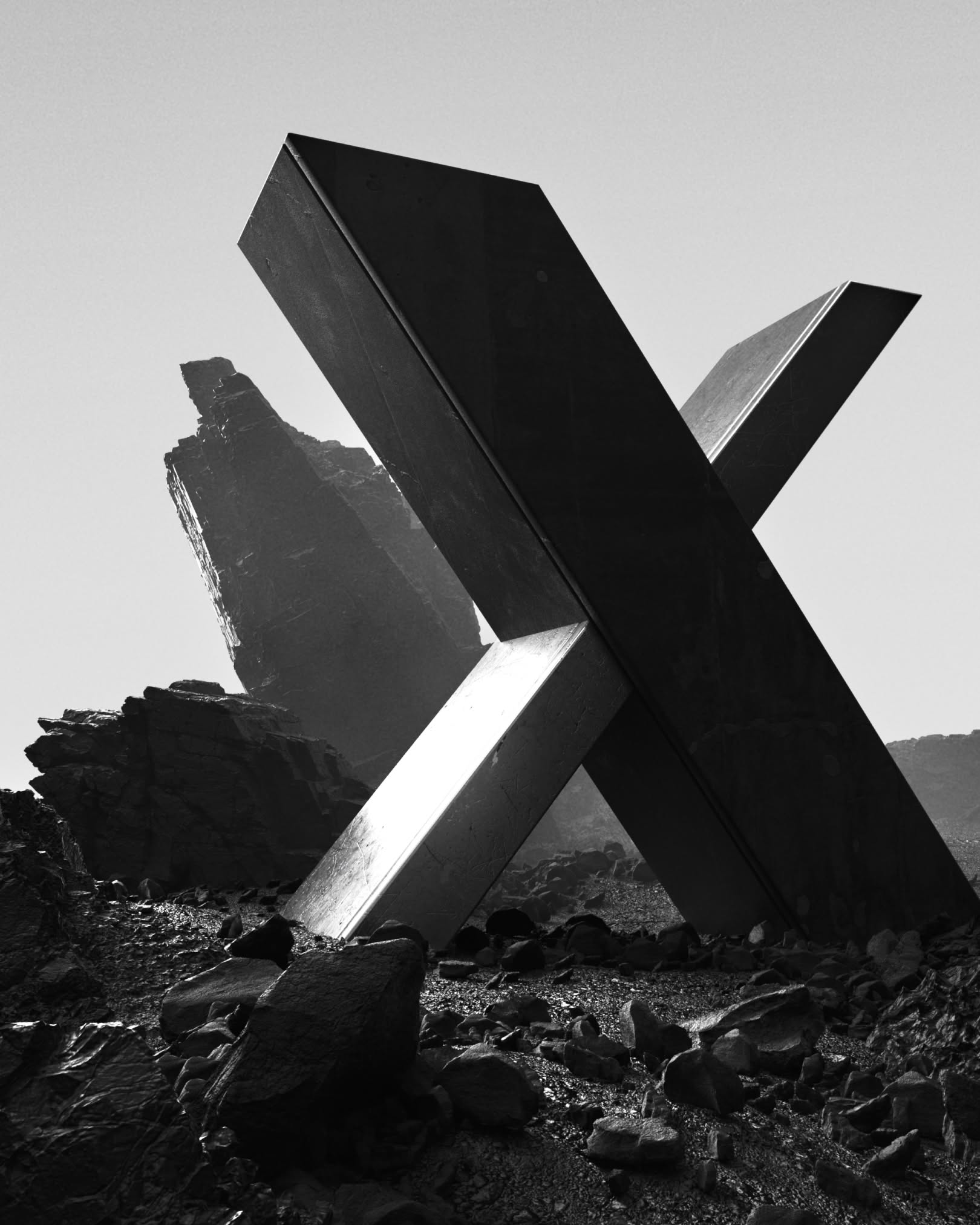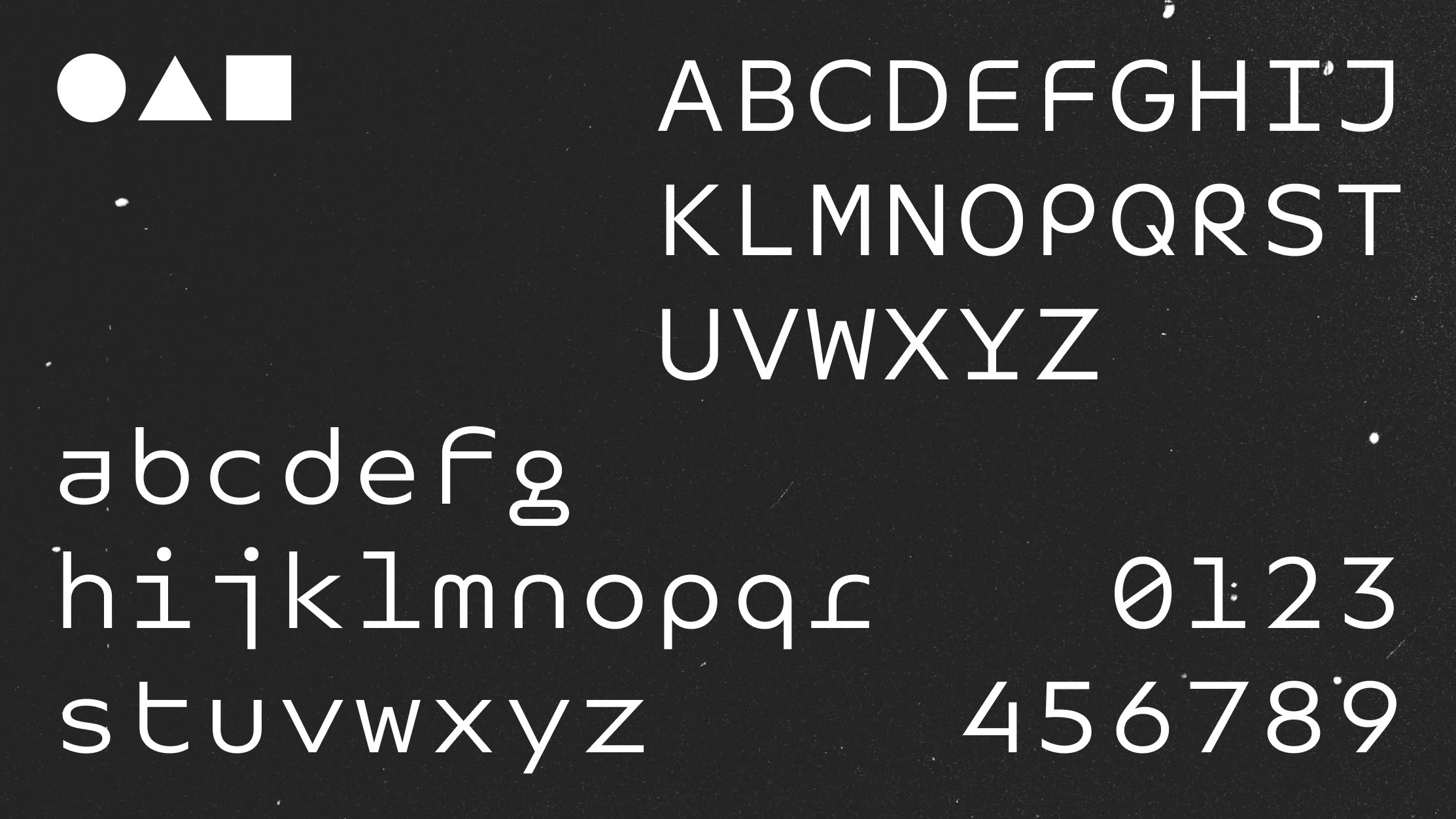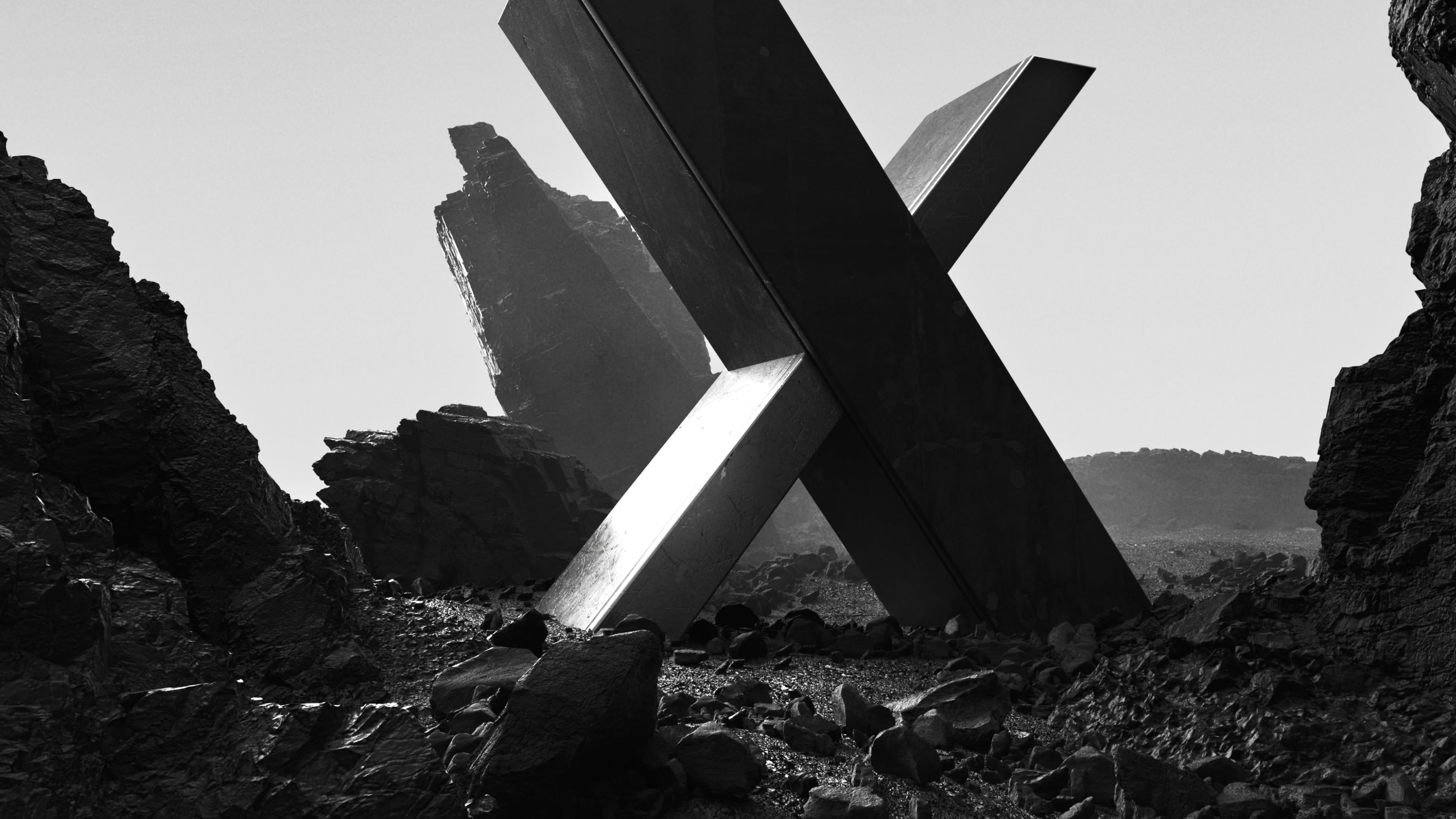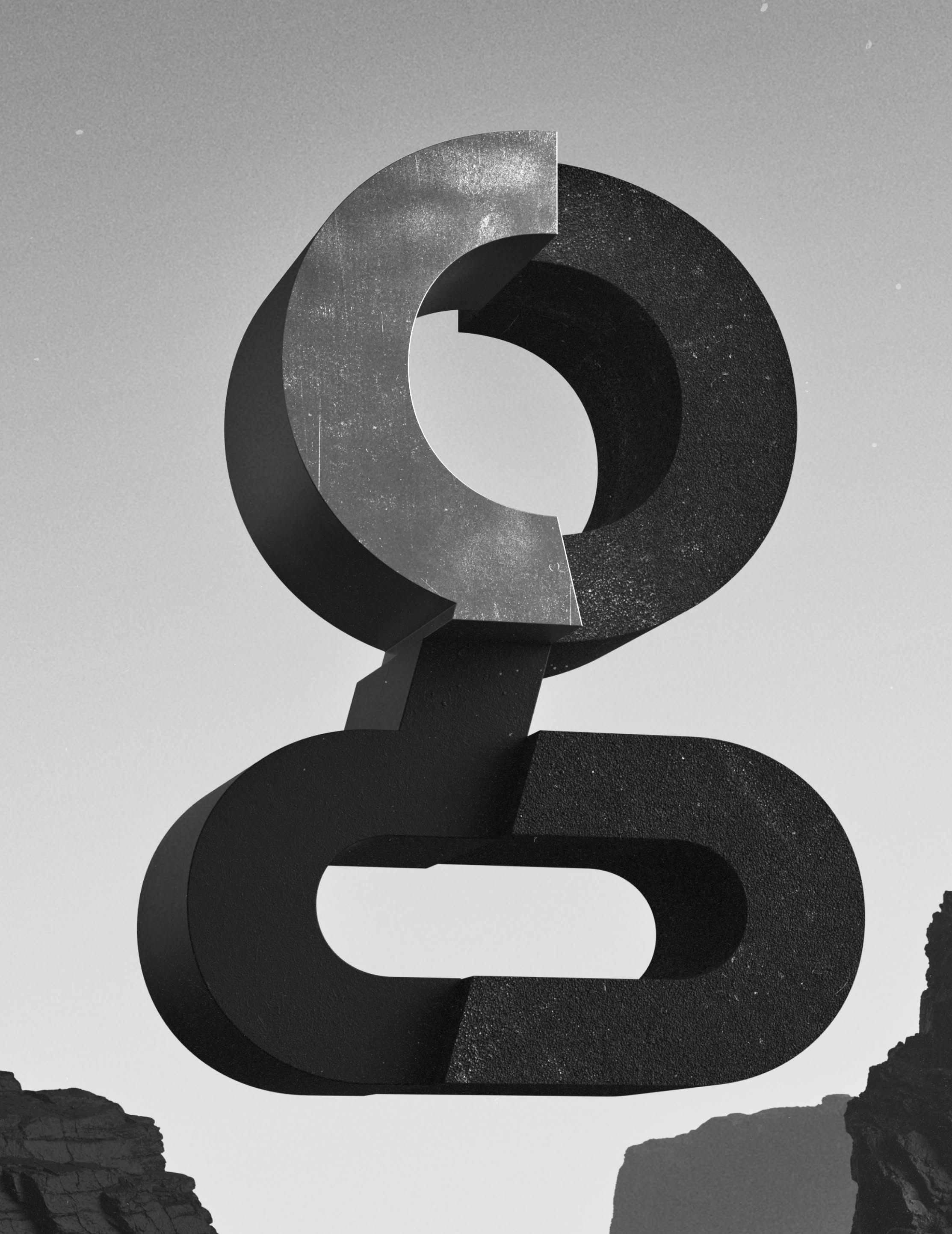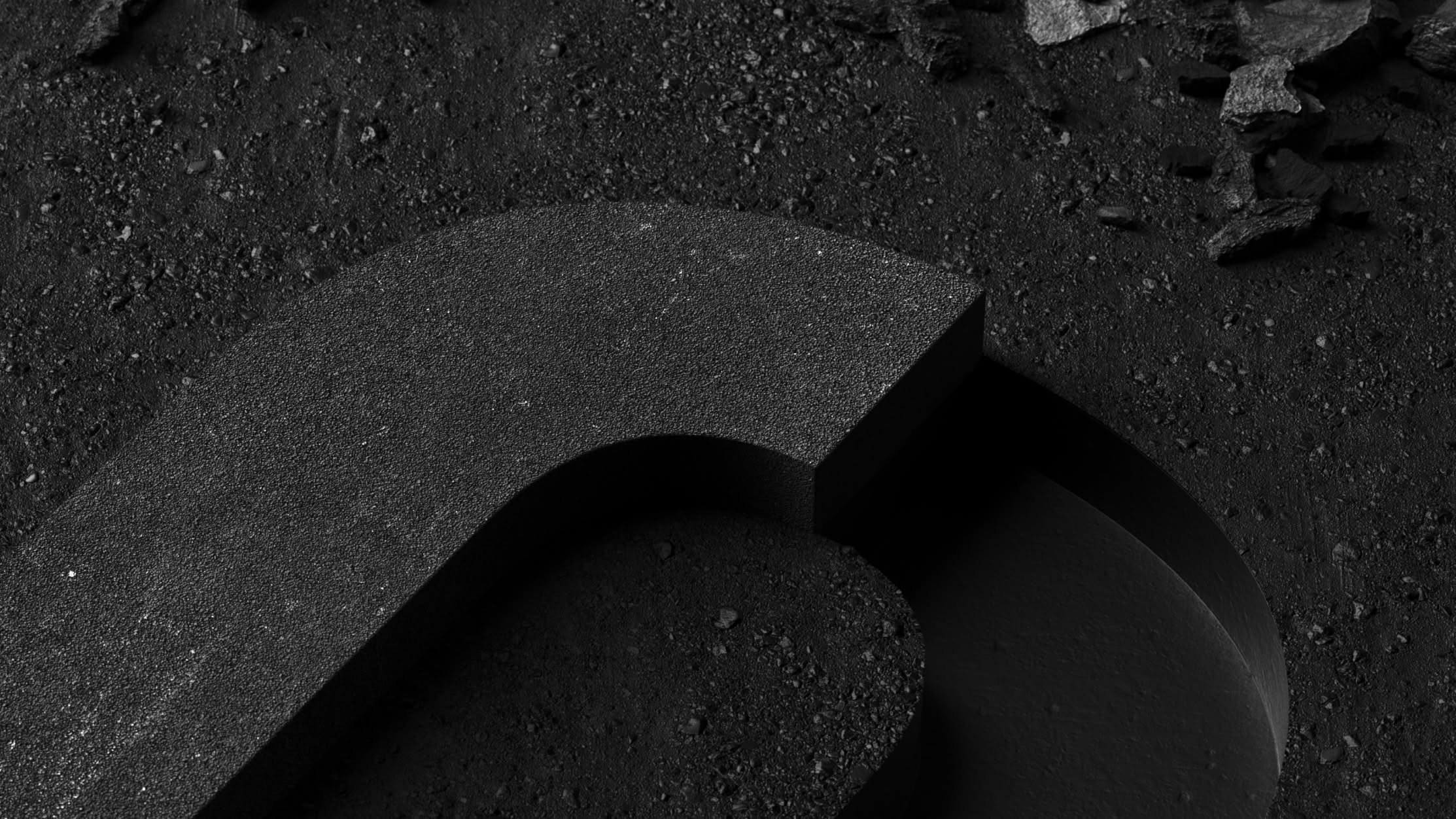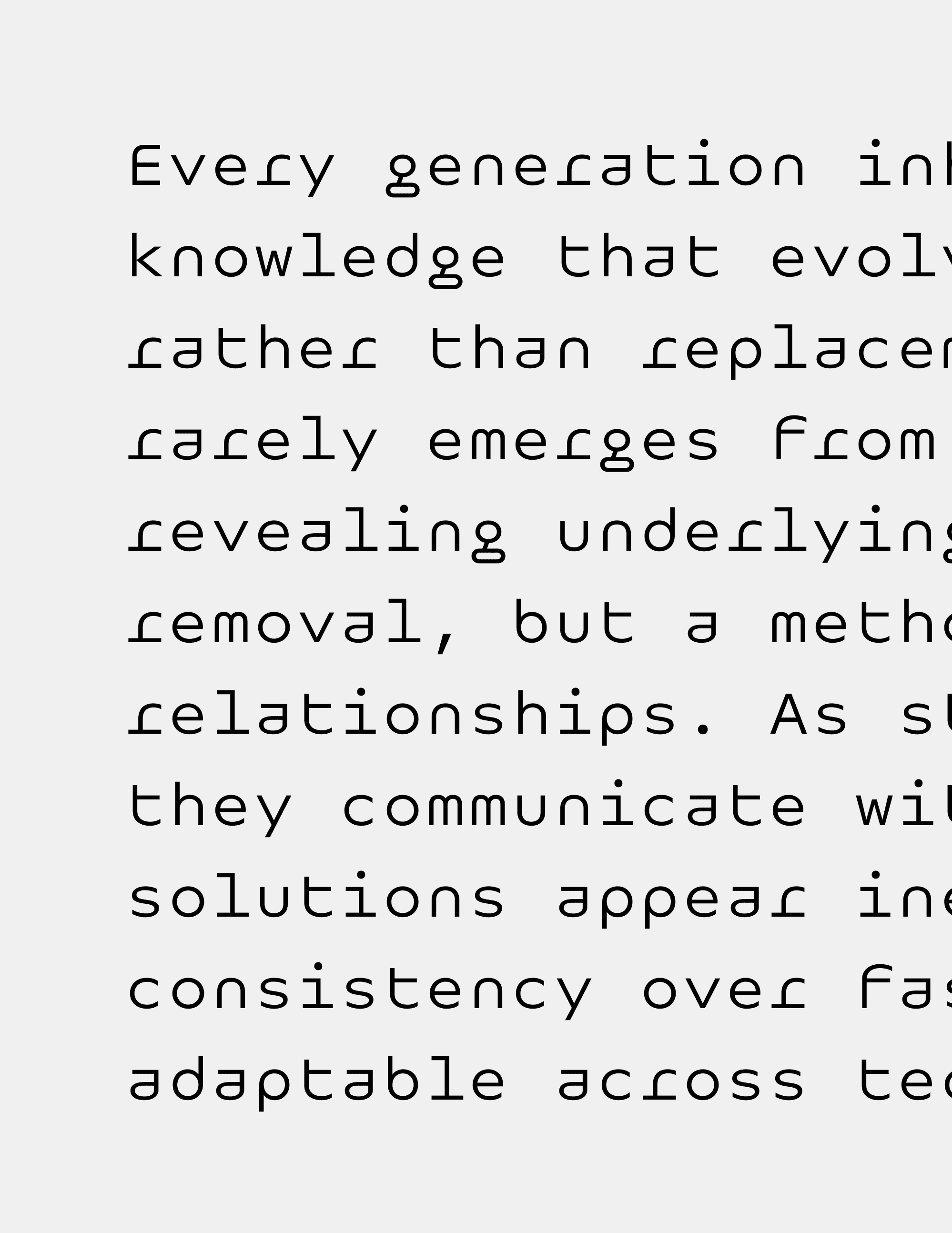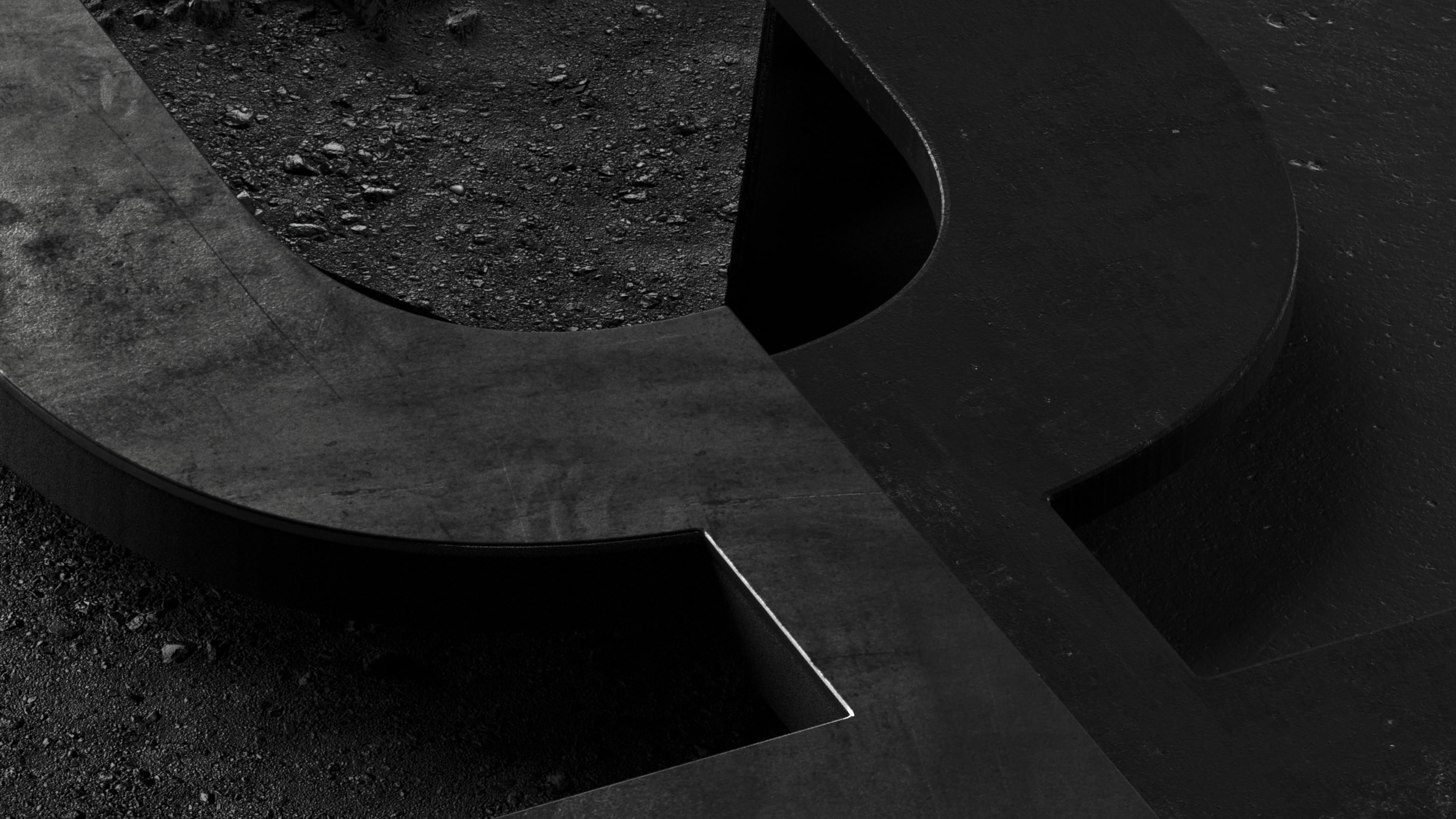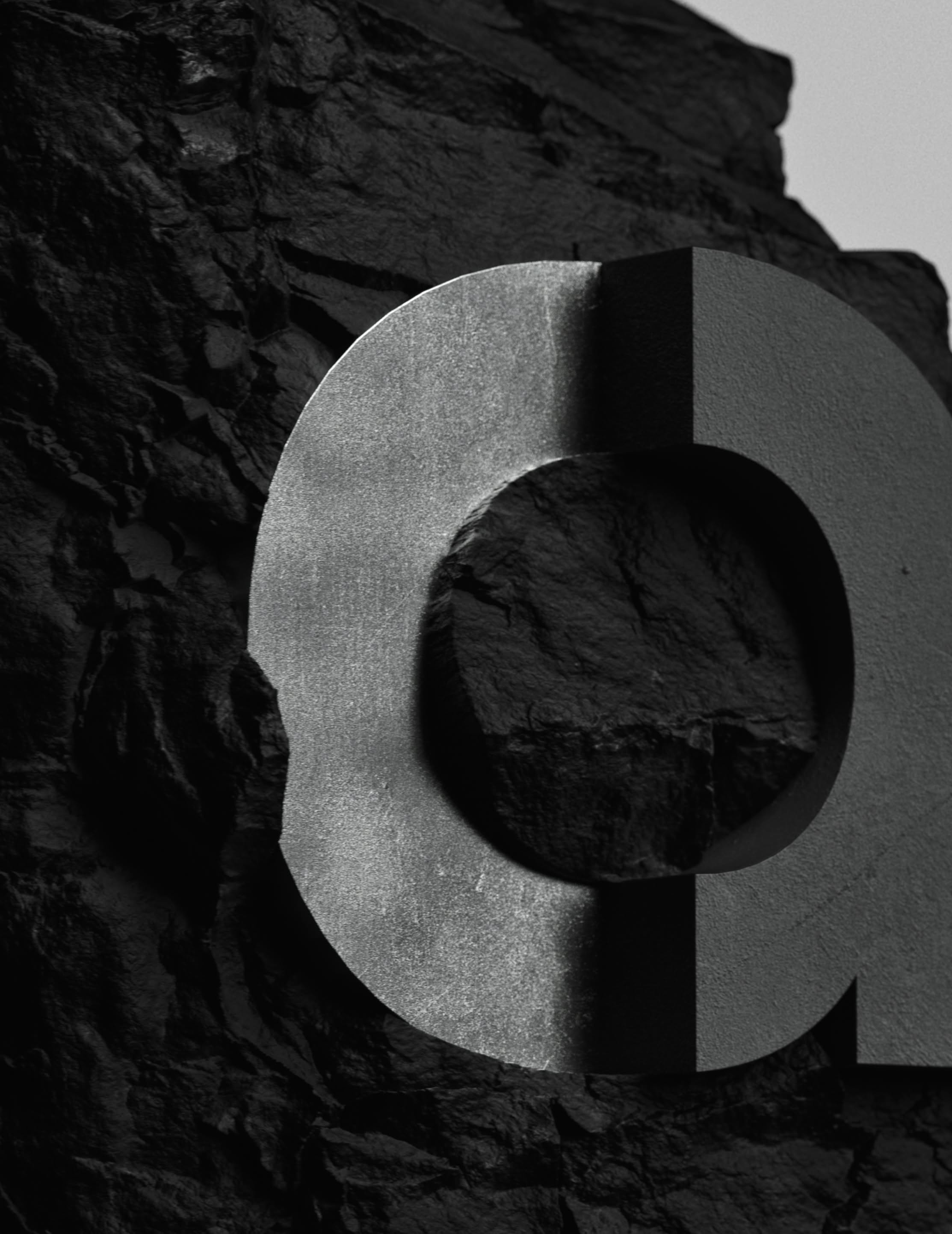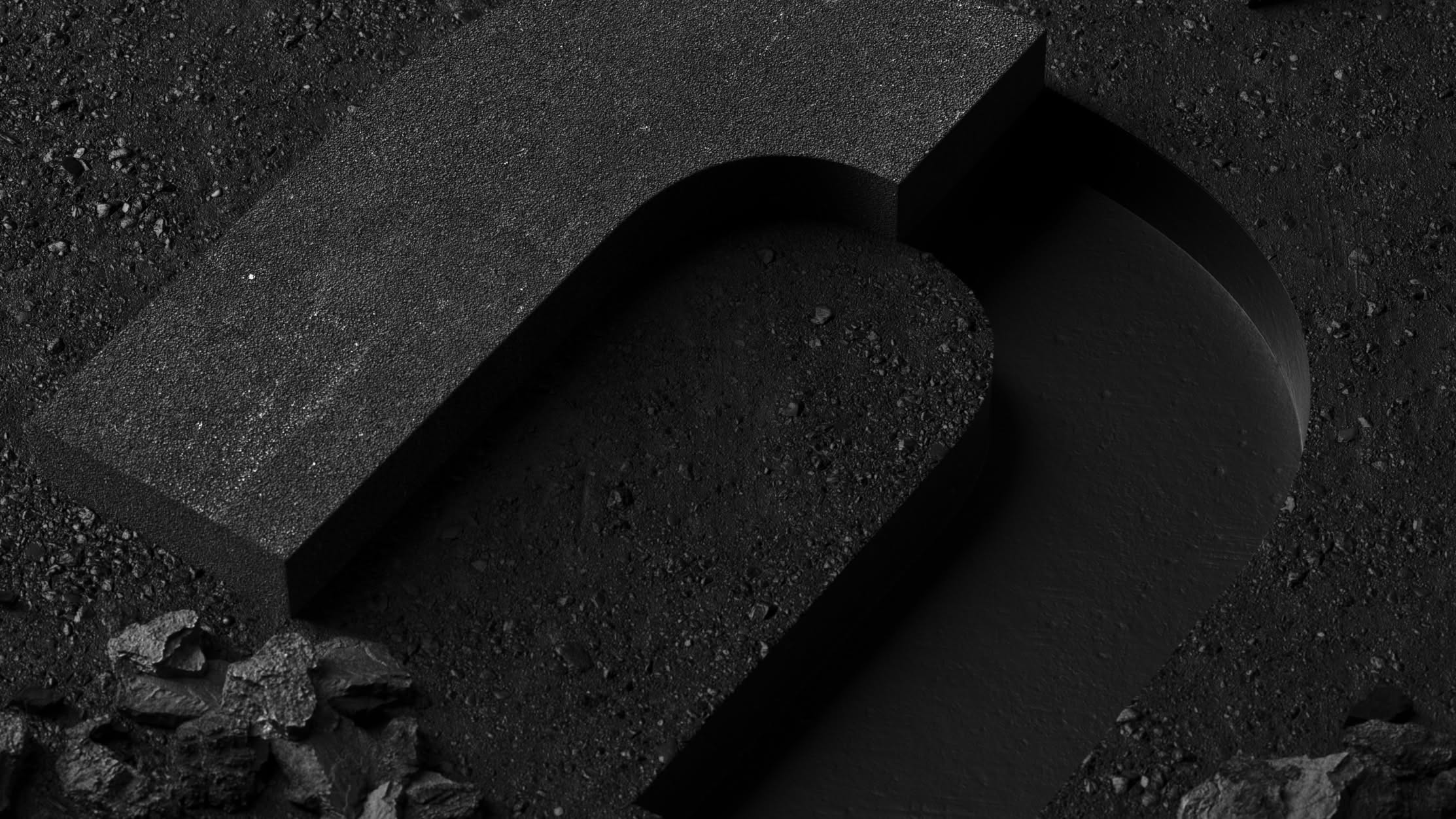
Neurath X Mono explores the future of geometric monospaced typography through a process of reduction, precision, and optical refinement. Together with Neurath X, Neurath and Neurath Mono, it brings clarity and character to editorial, branding, and digital applications.